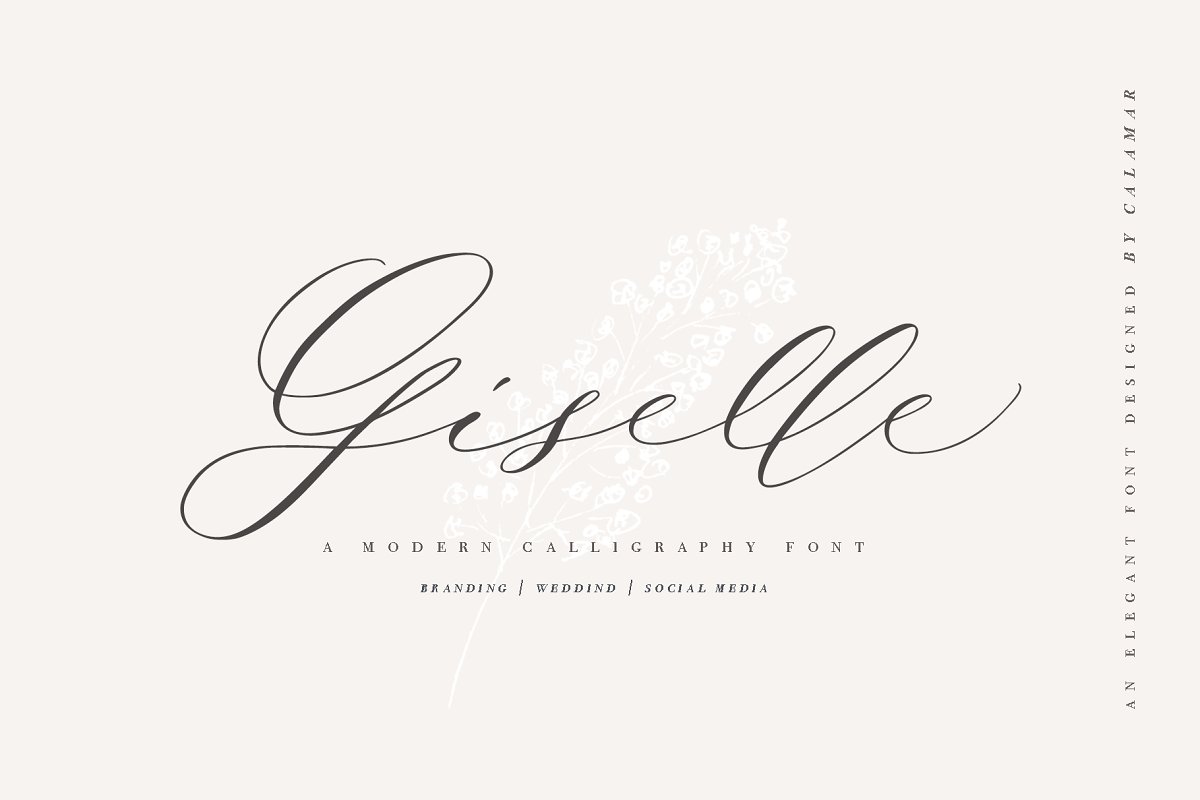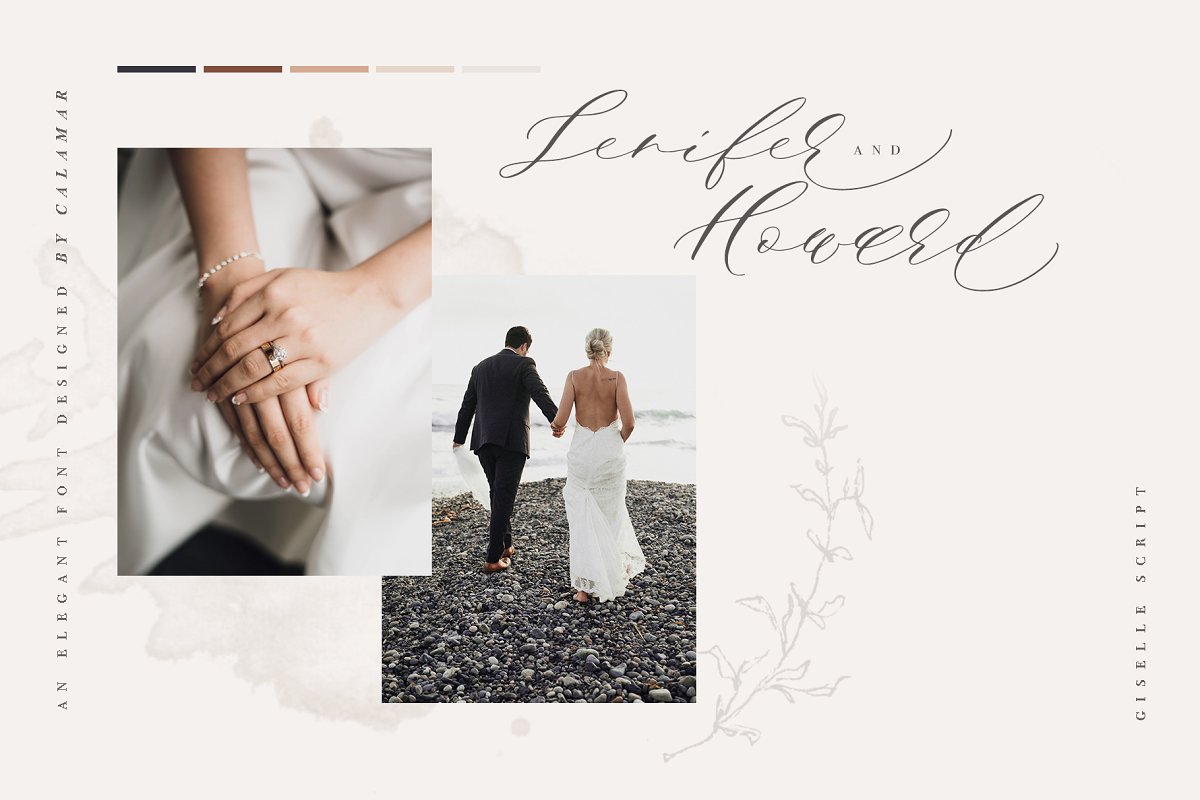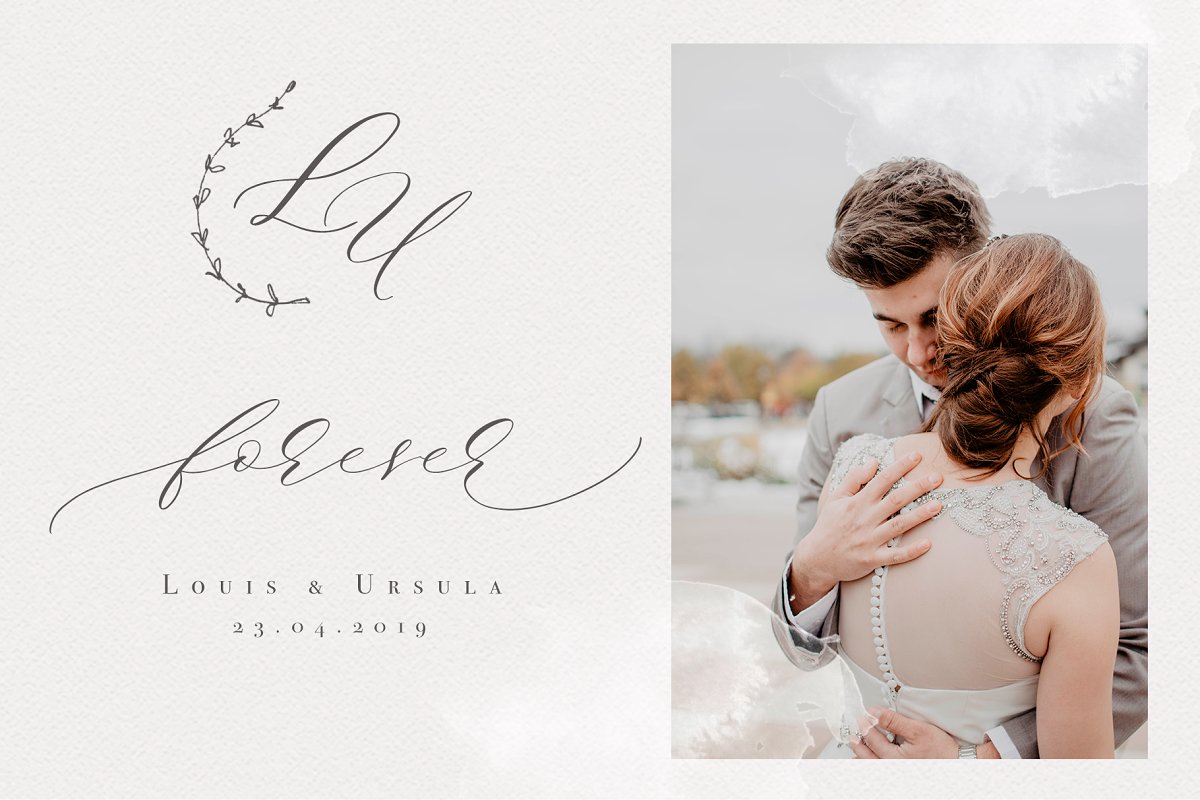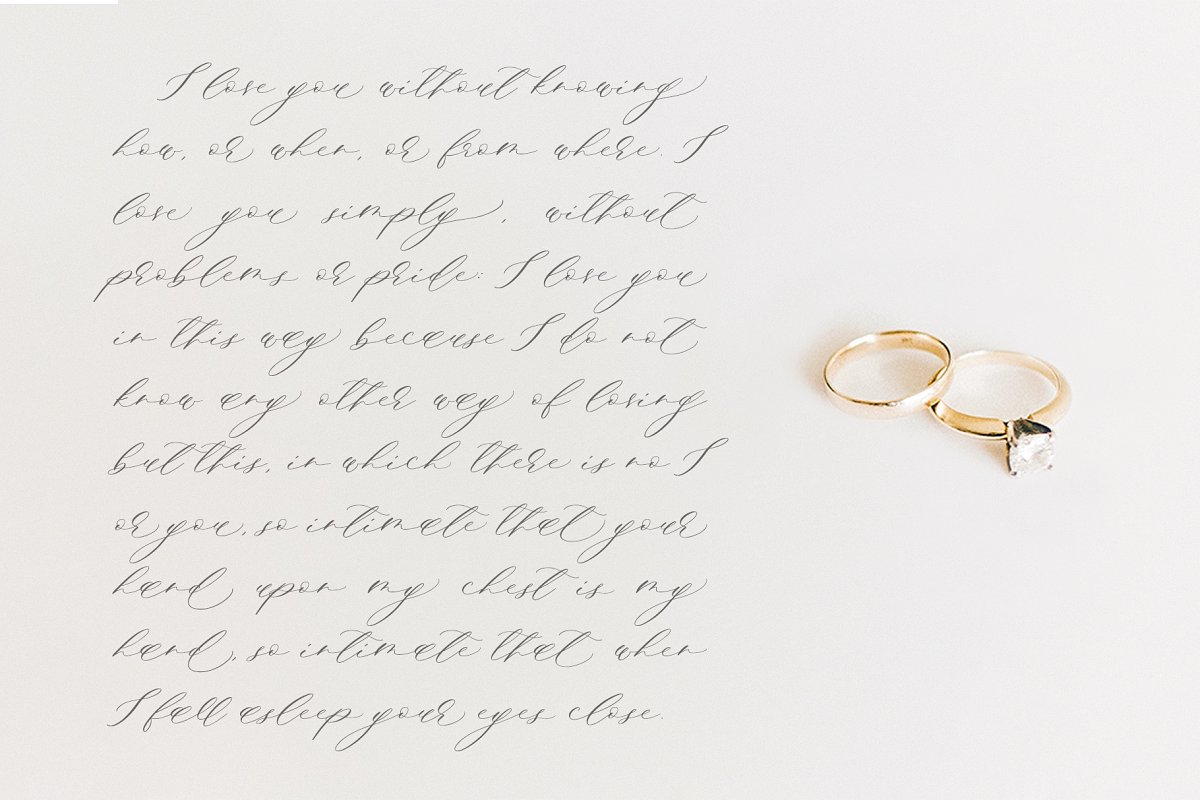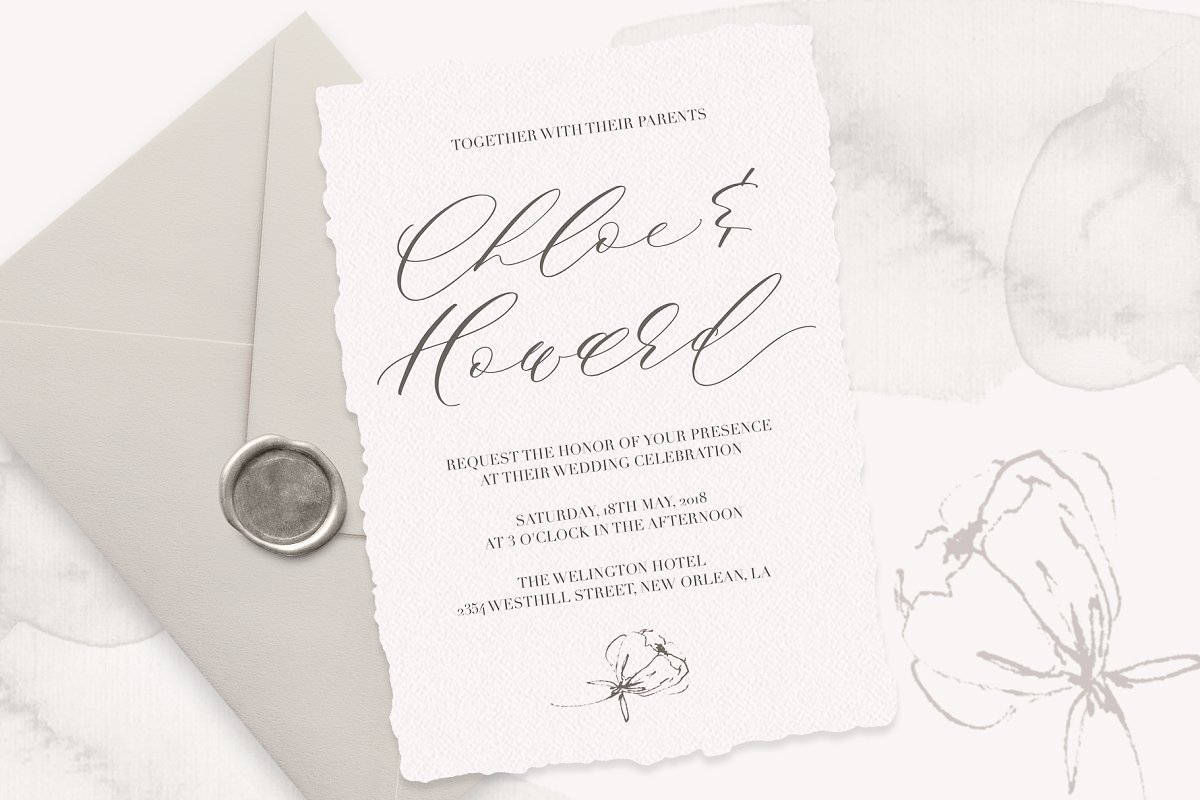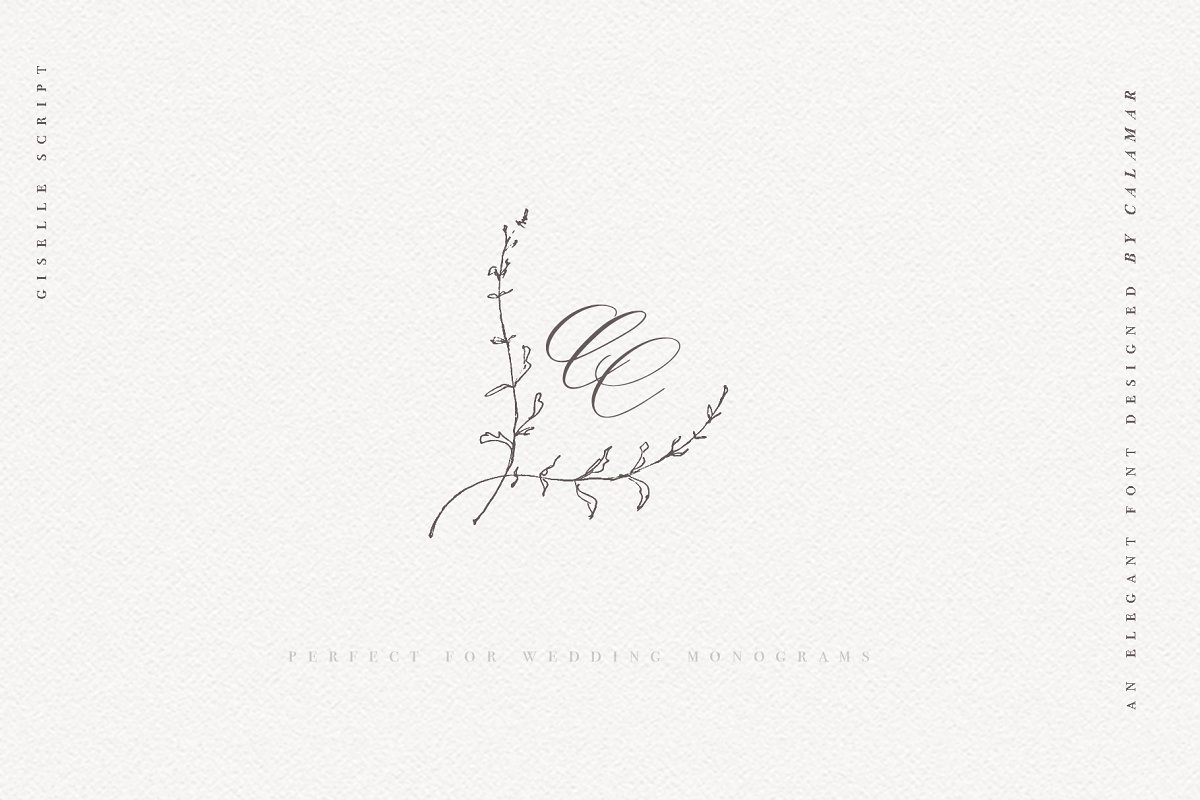
About the Giselle Script
Giselle Script is an elegant modern calligraphy font that will look awesome on wedding and event stationery, logos and branding materials, cards and so on, Giselle Script includes Uppercase and Lowercase Basic Characters, Numbers and Punctuation, Also the font contains ligatures and a lot of stylistic alternates to perfectly re-create natural calligraphy